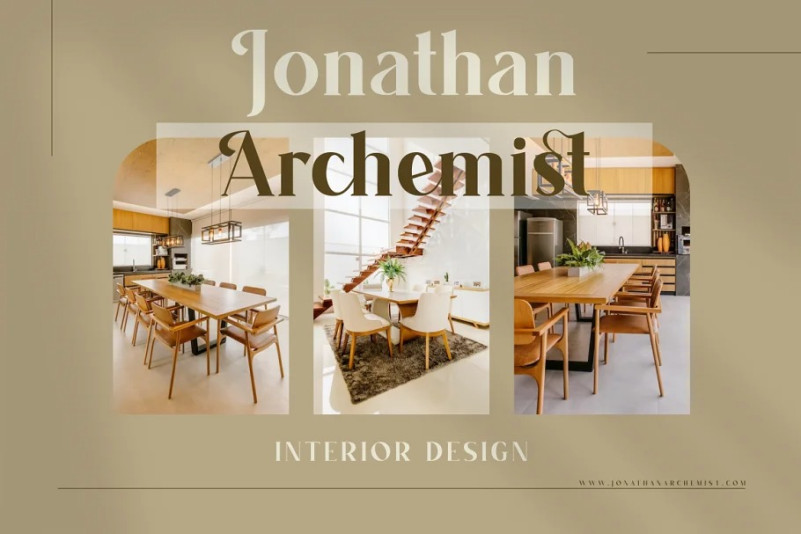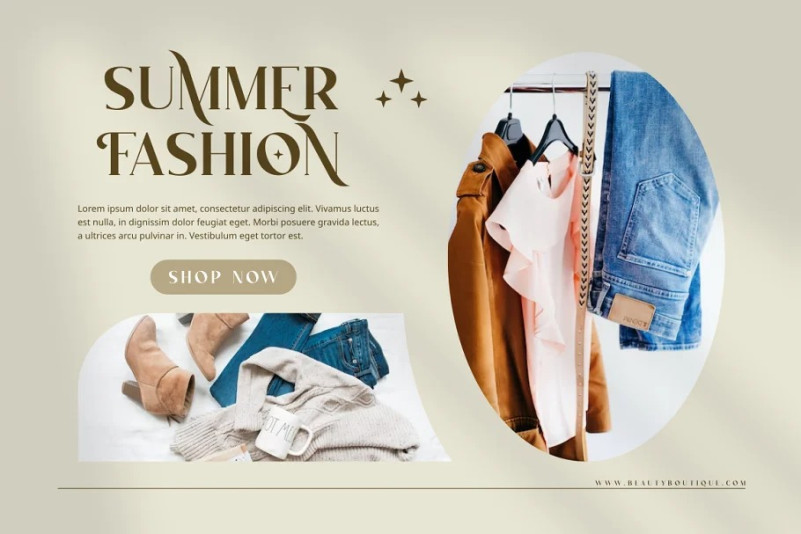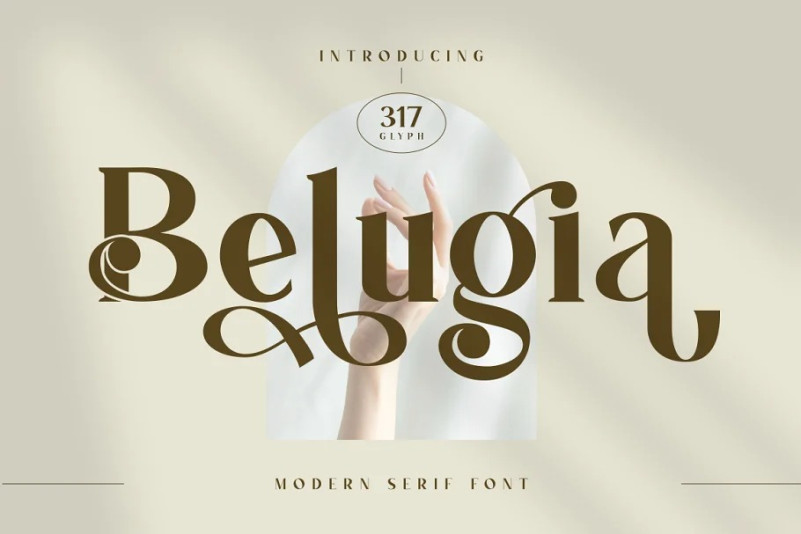
Belugia Font
Belugia Serif font is a serif font that has thick and thin strokes that contrast in the glyphs and is made with a straight line structure and smooth curves so that the Belugia font looks professional and elegant, and there are alternative letters and ligatures to make your typography design look unique and attractive.
Belugia font is also perfect for various projects such as hand lettering, merchandise, advertisements, invitations, social media posts, video thumbnails, quotes and etc.